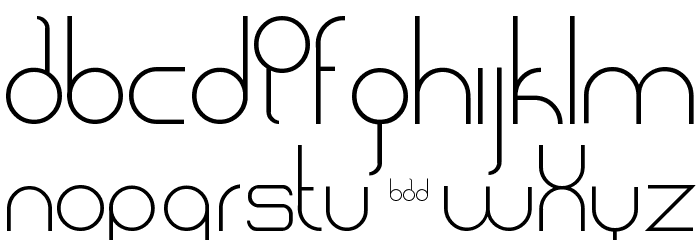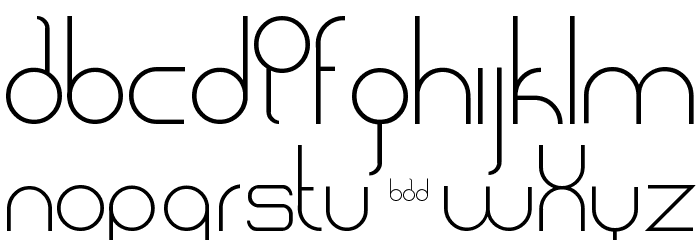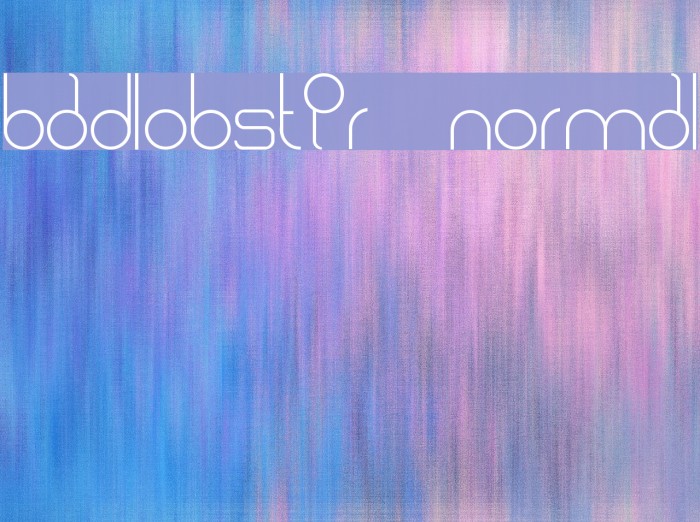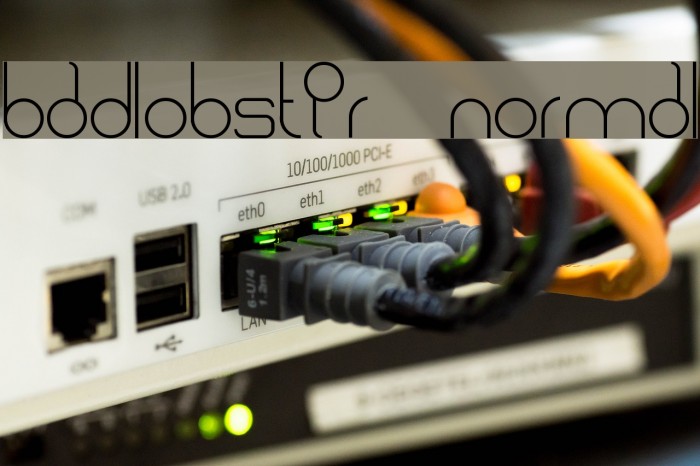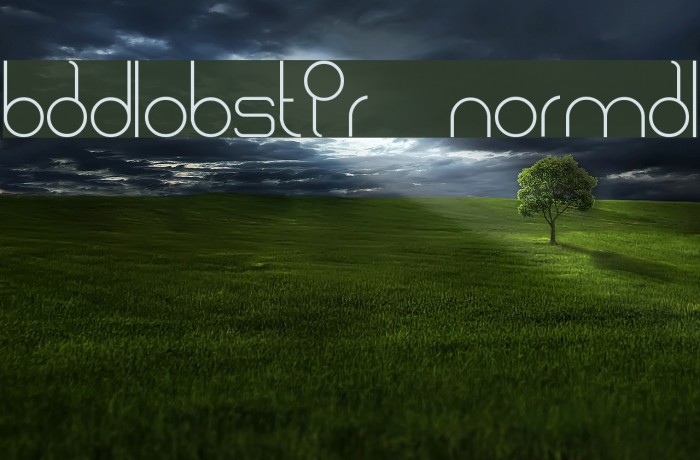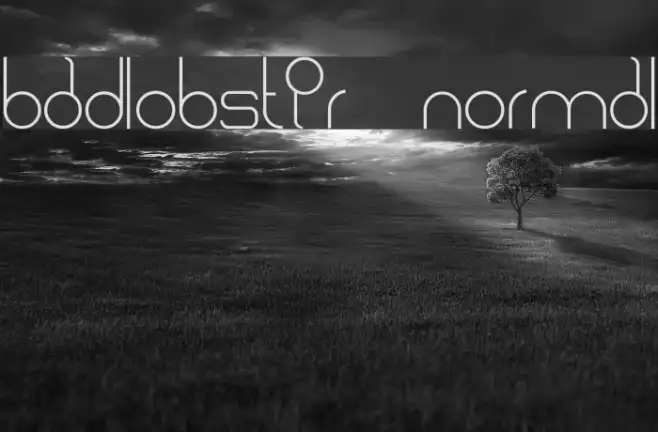
badlobster Normal Font
This font features a modern and minimalist design with a geometric structure. The characters are composed of thin, uniform lines that create a sleek and contemporary look. The uppercase and lowercase letters share a consistent style, emphasizing simplicity and elegance. The font's design is highly legible, with a focus on clarity and precision. Its unique character shapes, such as the rounded 'b' and 'd', add a distinctive touch, making it suitable for creative and artistic projects. The font's clean lines and balanced proportions make it versatile for various design applications.
A modern, minimalist font with geometric and sleek design.
- Proposed Projects: Ideal for branding, logos, modern web design, and minimalist posters.